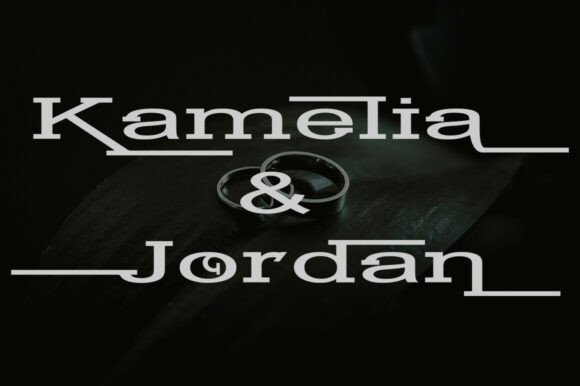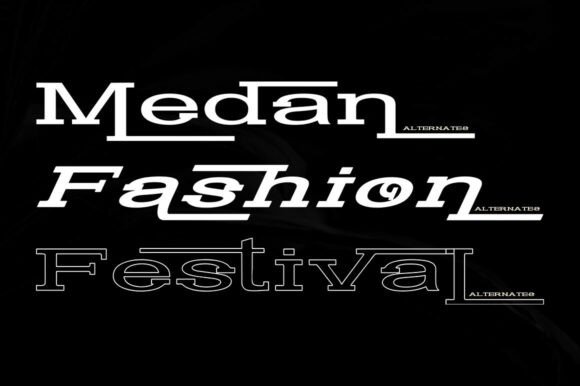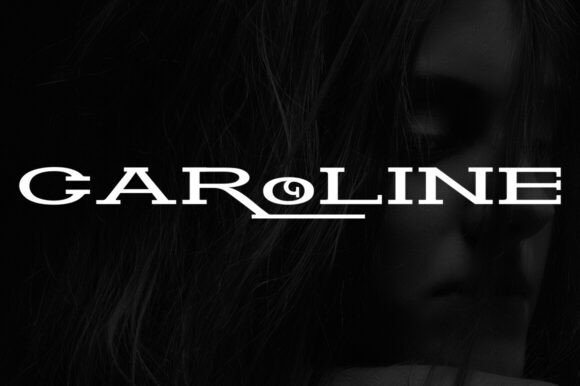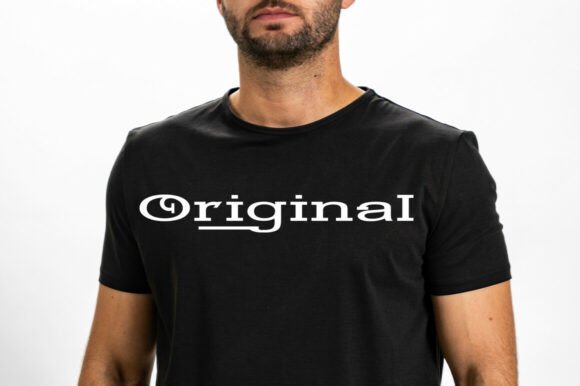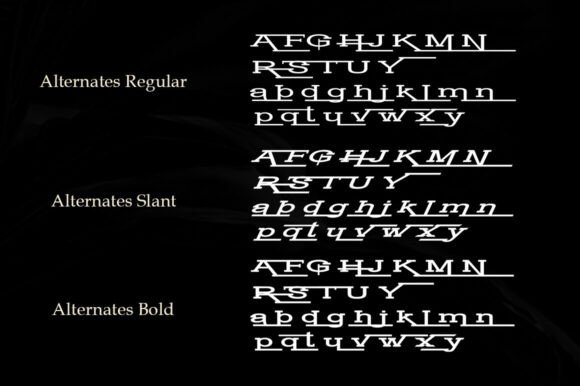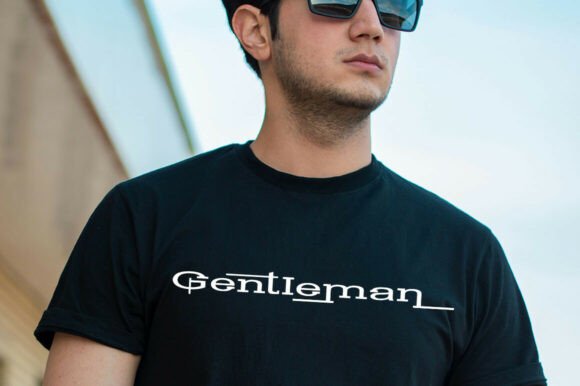
Unlock the Charm of the Past with the Astonia Eleganty Font
As a designer, there’s nothing quite like the thrill of discovering a font that perfectly captures the essence of a project. For me, it was the moment I stumbled upon the Astonia Eleganty Font – a beautiful blend of retro and modern serif styles that transported me back to a bygone era of elegance and sophistication.
With its tight curves and luxurious feel, the Astonia Eleganty Font is the perfect choice for designers looking to add a touch of nostalgia and glamour to their work. Whether you’re creating vintage logos, wedding designs, or social media posts, this font is sure to make your creations stand out. Its high degree of legibility and versatility make it a valuable asset for designers, allowing them to customize their work with ease.
Astonia Eleganty Font Key Features
- Unique Characteristics: Elegant and sophisticated design, perfect for luxury brands, high-end fashion, and premium products, featuring refined lines and subtle curves.
A Review of Astonia Eleganty Font
As a designer, I’ve had the chance to work with various fonts, and I must say that Astonia Eleganty Font has its strengths and weaknesses. Let’s dive into the details.
- Stunning Elegant Feel: Astonia Eleganty Font has a unique, sophisticated look that’s perfect for high-end projects, such as luxury branding or premium publications.
- Wide Character Set: This font includes a wide range of characters, including Latin, Cyrillic, and Greek alphabets, making it suitable for projects that require multilingual support.
- Scalability: Astonia Eleganty Font is highly scalable, meaning it looks great in various sizes, from small titles to large headings.
- Not Suitable for Body Text: Due to its elegant and decorative nature, Astonia Eleganty Font is best used for titles, headings, or short phrases, rather than body text, where legibility is crucial.
- Lack of Expressiveness: This font’s elegant feel can sometimes come across as too formal or even pretentious, which may not be suitable for projects that require a more approachable tone.
Astonia Eleganty Font is a beautiful, high-end font that excels in certain areas. While it may not be the best choice for every project, it’s perfect for those that require a touch of sophistication and elegance. Just be mindful of its limitations and use it wisely.
For optimal results, use the Astonia Eleganty font in designs that require elegance and sophistication. Experiment with different font sizes and combinations to achieve a unique look.
The Astonia Eleganty font is ideal for:
– Luxury brand logos and marketing materials
– High-end event invitations and promotional materials